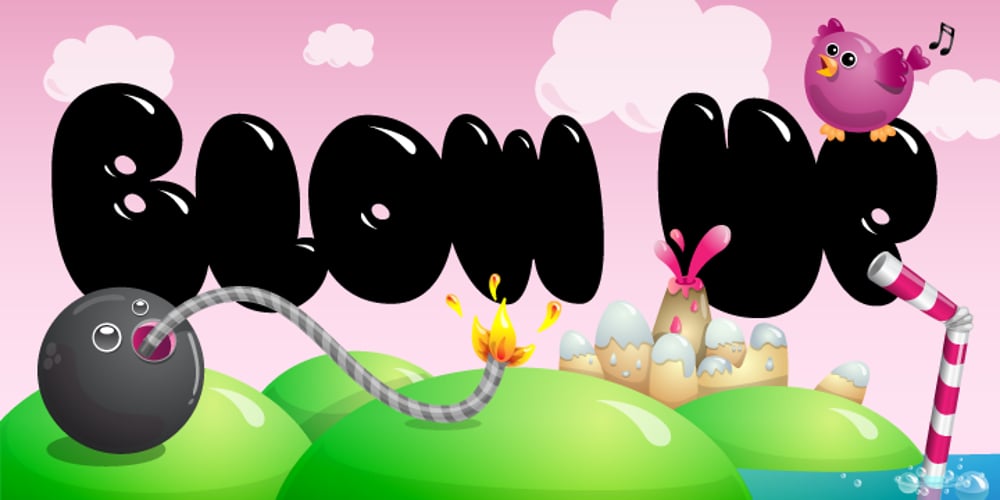
Blow Up
Blow Up font
Blow Up Font Family was designed by Hannes von Döhren and published by HVD Fonts. Blow Up contains 3 styles and family package options. Type designer Hannes von Döhren created a display typeface called “Blow Up”. A bubbly, sweet font with nice light effects. Perfect for use in big sizes on posters or flyers. You can use Blow Up Sans & Blow Up Bling together to influence the color of the light effects.